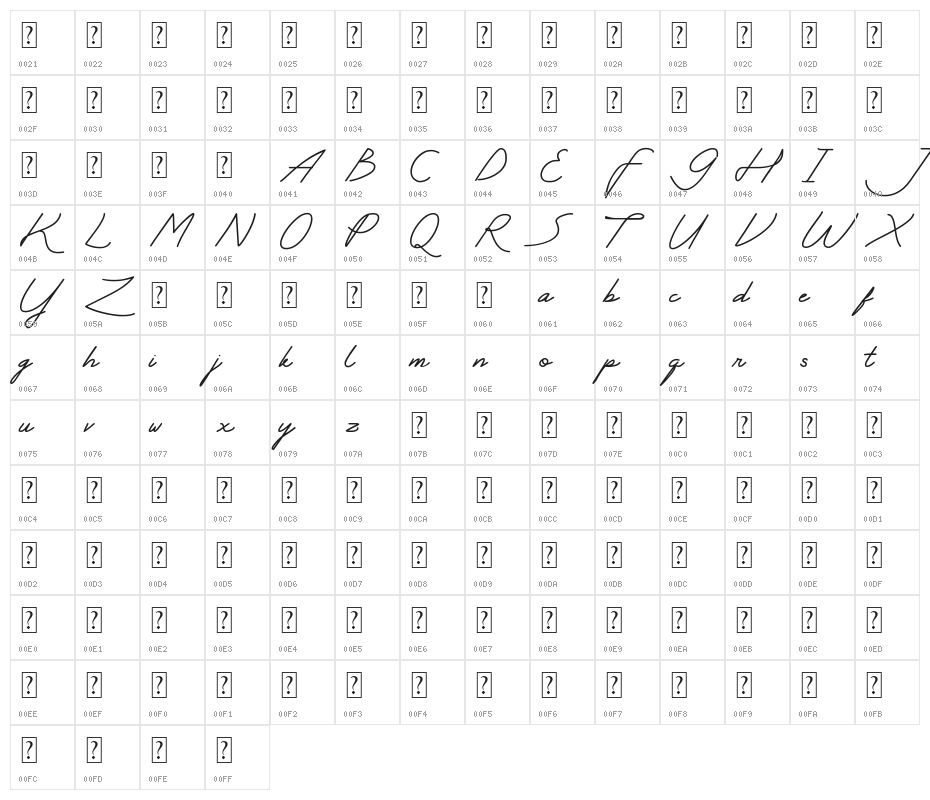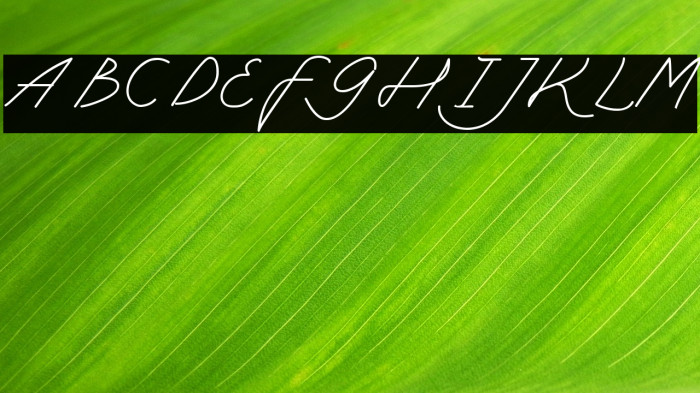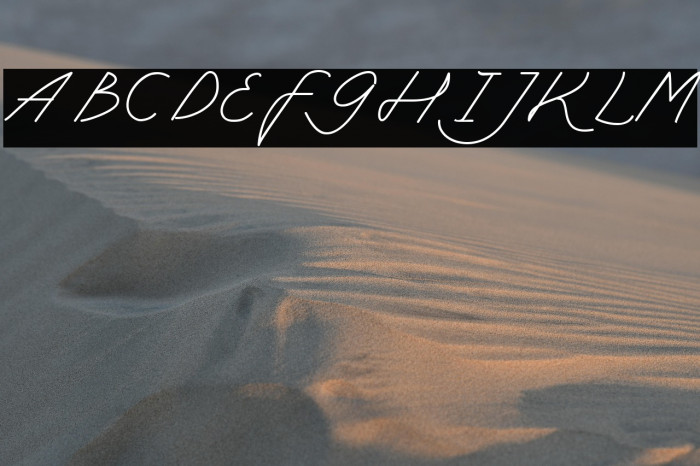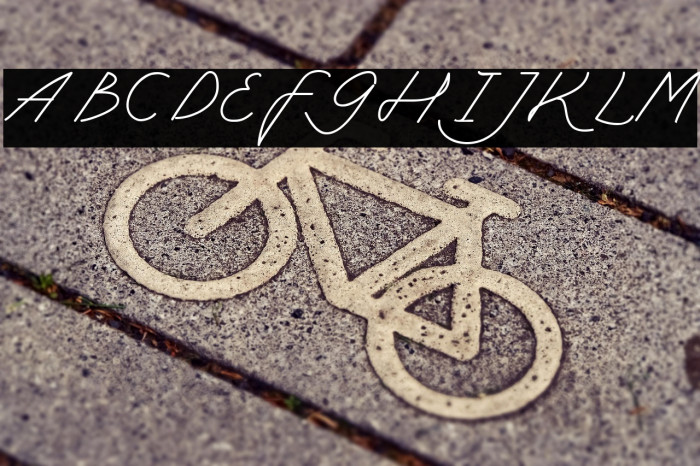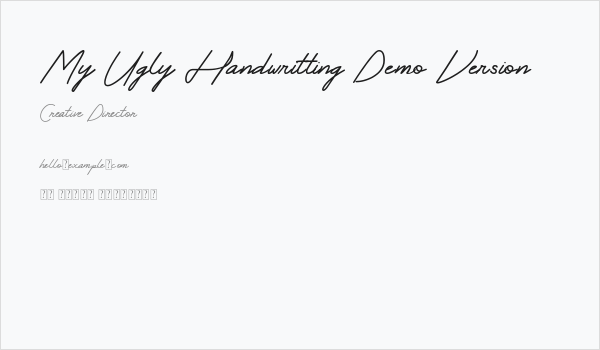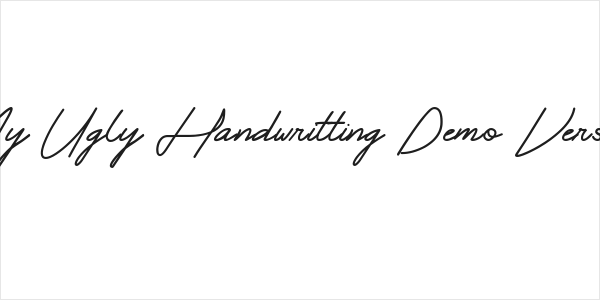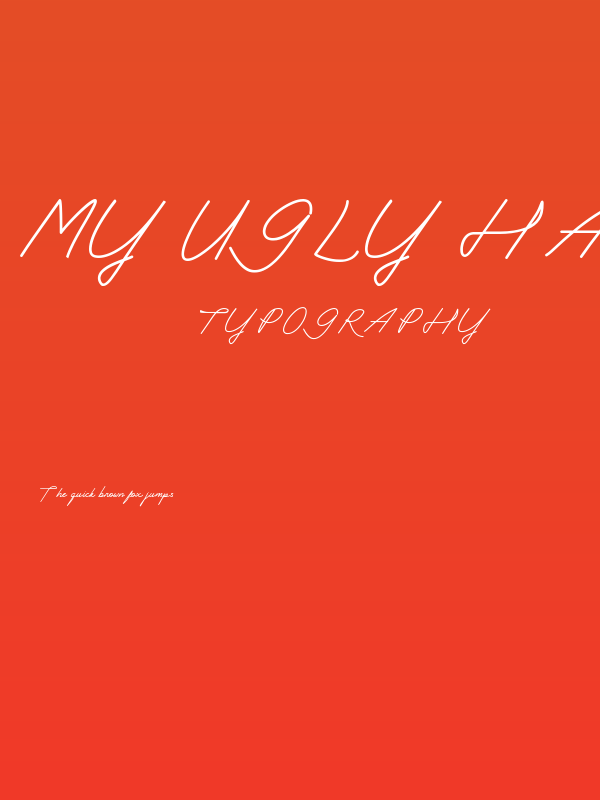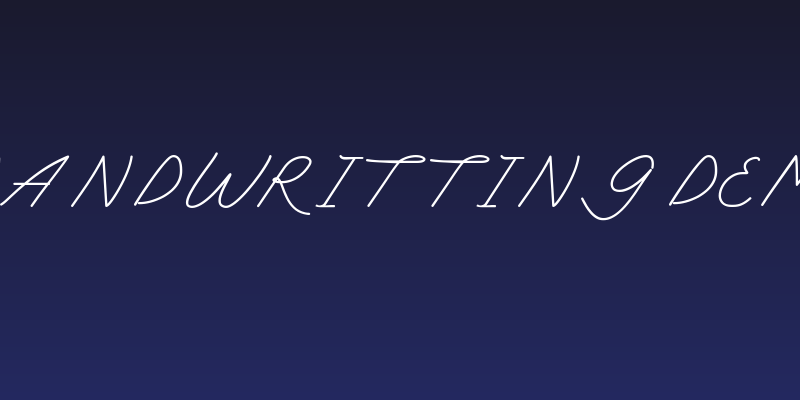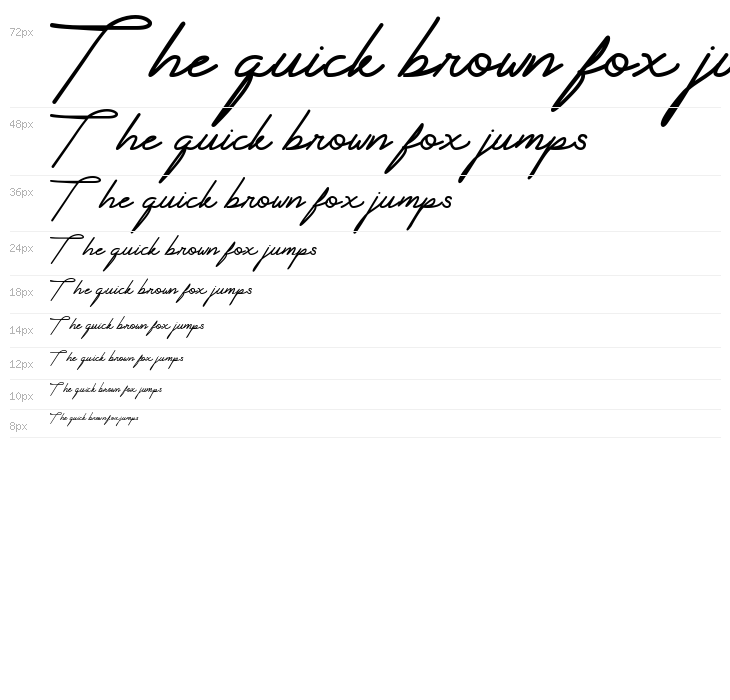
My Ugly Handwritting Demo Version Font
My Ugly Handwritting Demo Version Description
This font features a handwritten style with a casual and flowing script. The uppercase letters are elegantly connected, giving a sense of fluidity and movement. The lowercase letters maintain a consistent style, with smooth curves and a slightly slanted orientation. The overall appearance is informal yet stylish, making it suitable for creative projects. The font lacks special characters, which are replaced by placeholders, indicating it may be a demo version. This limitation suggests it is intended for personal or non-commercial use where full character support is not critical.
| Use Case | Creative projects, personal use |
| Proposed Projects | Ideal for personal invitations, greeting cards, or creative art projects. |